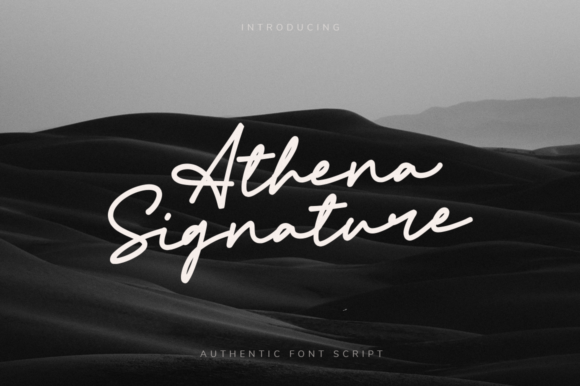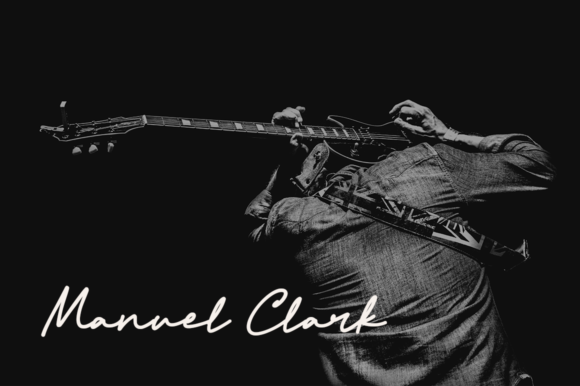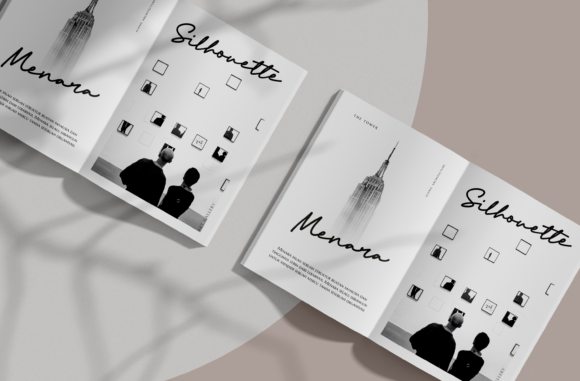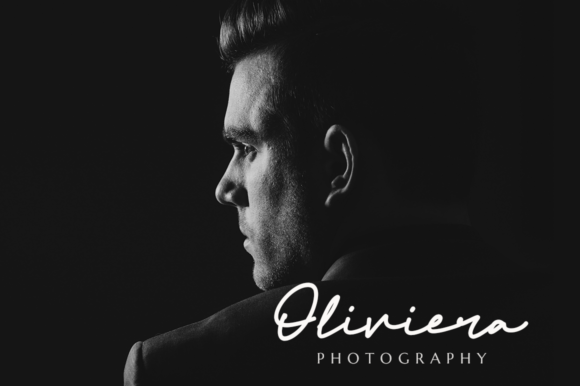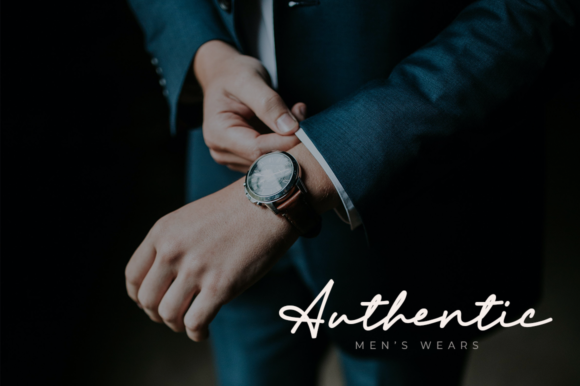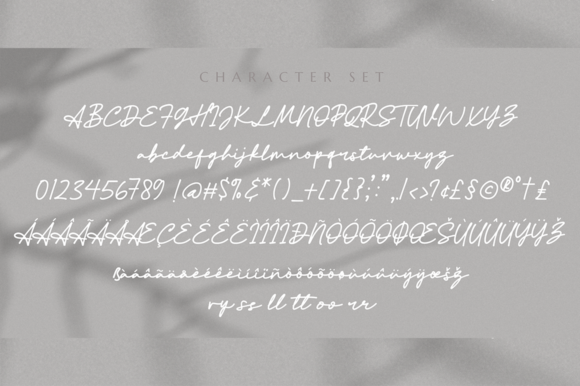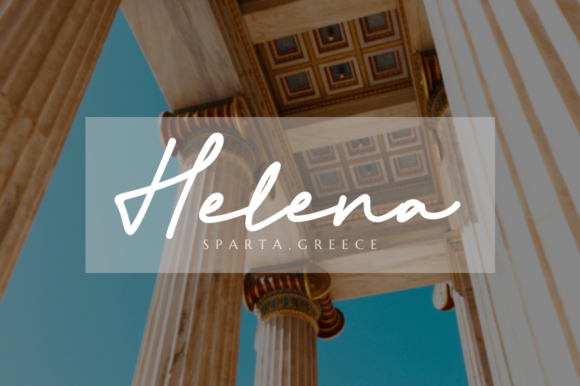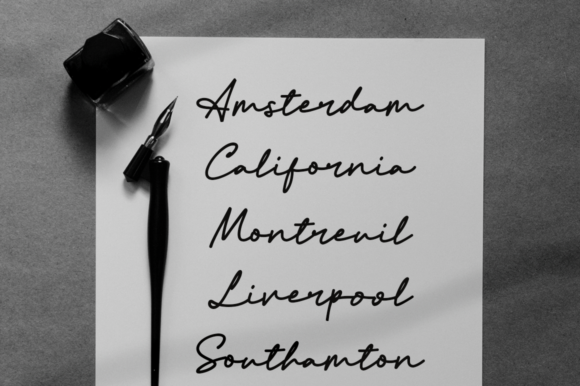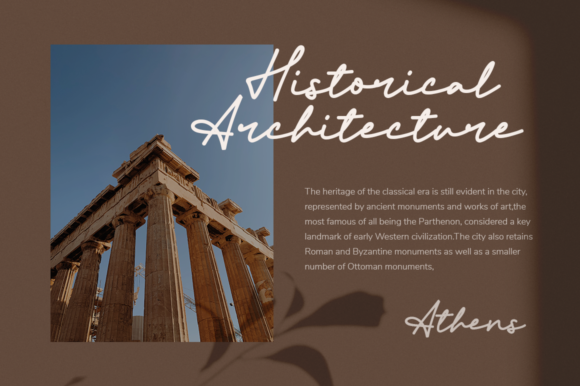
Athena Signature Font
About Athena Signature Font
Athena Signature is an authentic and stylish script font. It strikes a perfect balance between thin and thick lines, creating a harmonious and elegant appearance. The unique and chic design of Athena Signature makes it a fantastic choice across a wide range of designs. Whether you’re working on logos, wedding invitations, headlines, posters, or other creative projects, Athena Signature is an excellent option to add beauty and refinement. Carefully crafted curves and varying weights are suitable for both formal and informal designs, ensuring that your projects stand out and leave a lasting impression.
Athena Signature is designed to elevate your projects with attractiveness and sophistication. The font’s graceful curves and balanced composition ensure that each letter is meticulously placed. This allows your text to flow smoothly and adds a touch of uniqueness and character to your design.
Combining modern and classic design elements, Athena Signature keeps your projects current and timeless. The font’s elegant style adds a sophisticated aesthetic to your design, while its various weights allow you to adjust the emphasis of your text.
In conclusion, Athena Signature is an impressive script font designed to enhance the beauty and elegance of your projects. Fine details and carefully designed forms add a sophisticated touch to any type of design, leaving a memorable impact on viewers that they won’t forget.